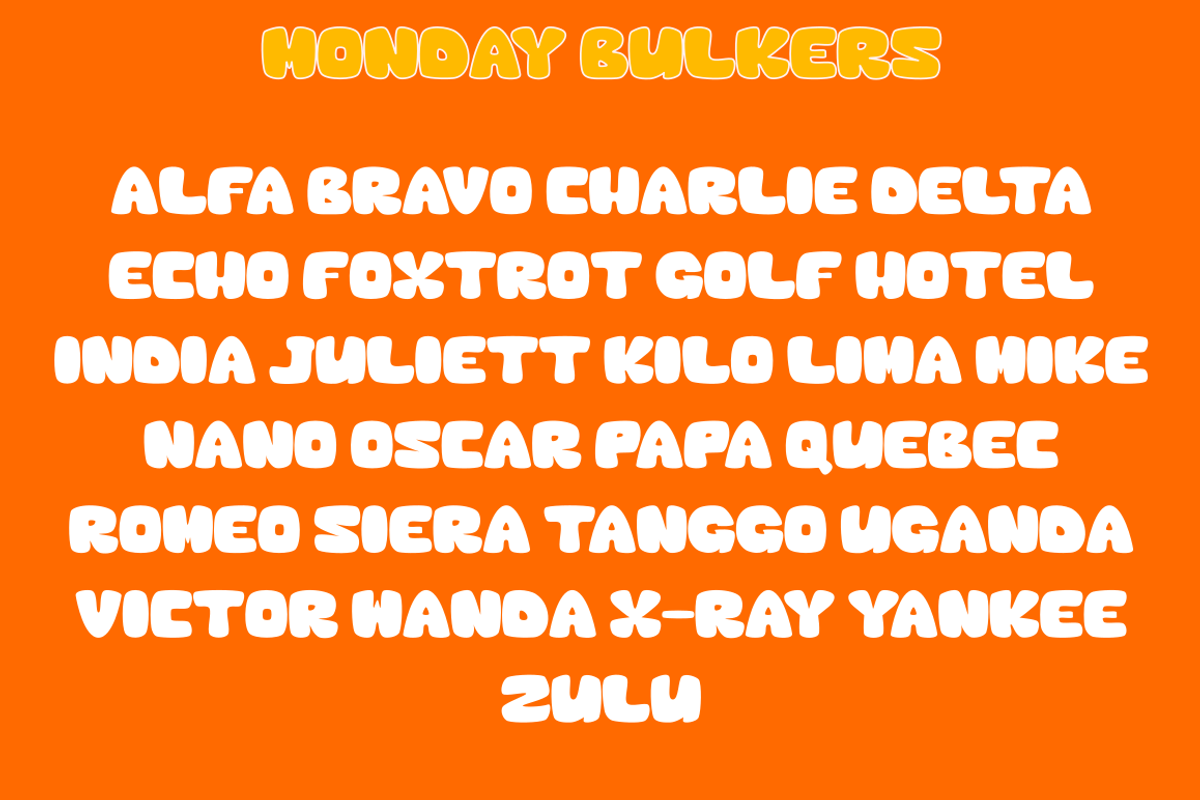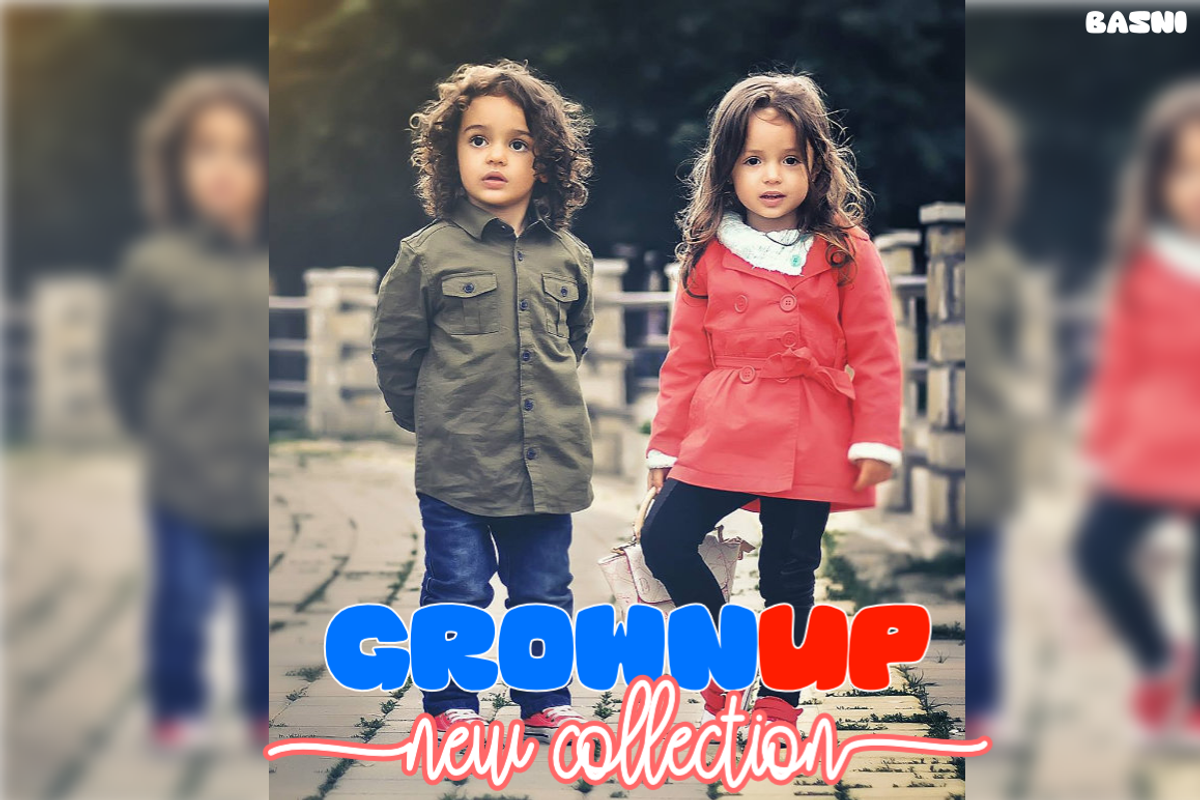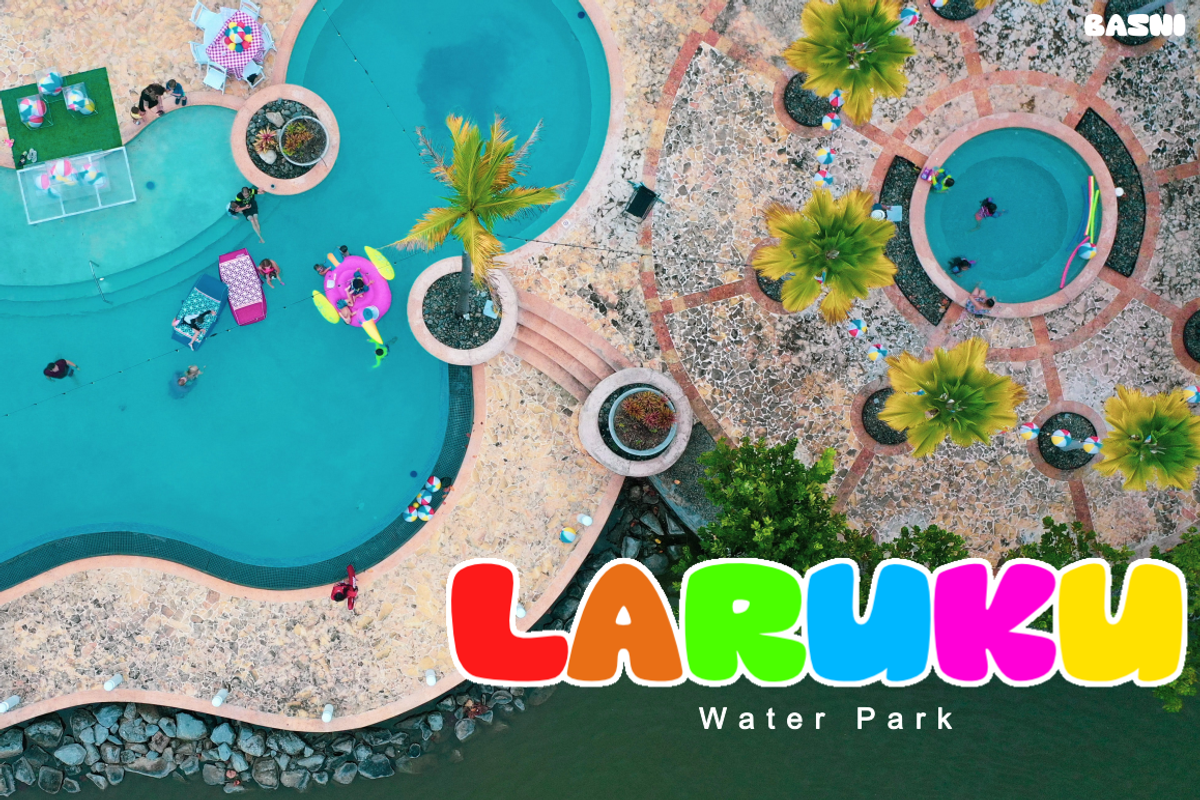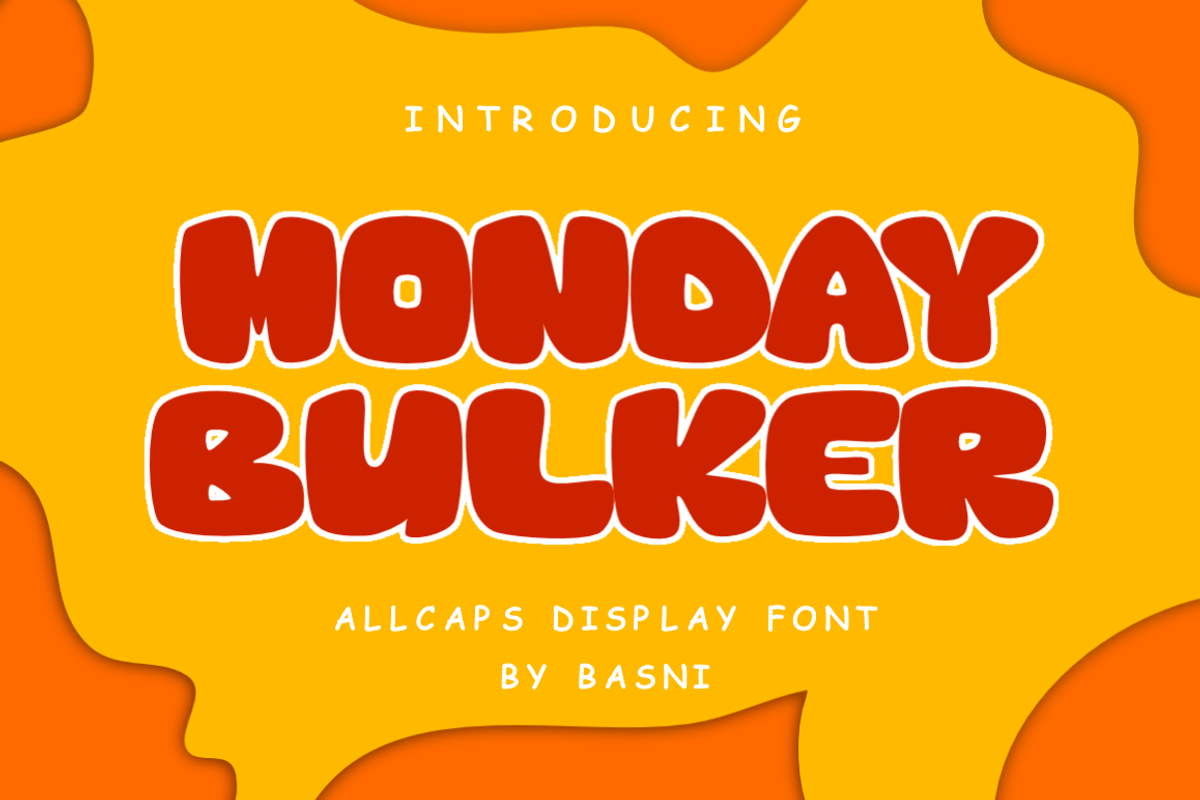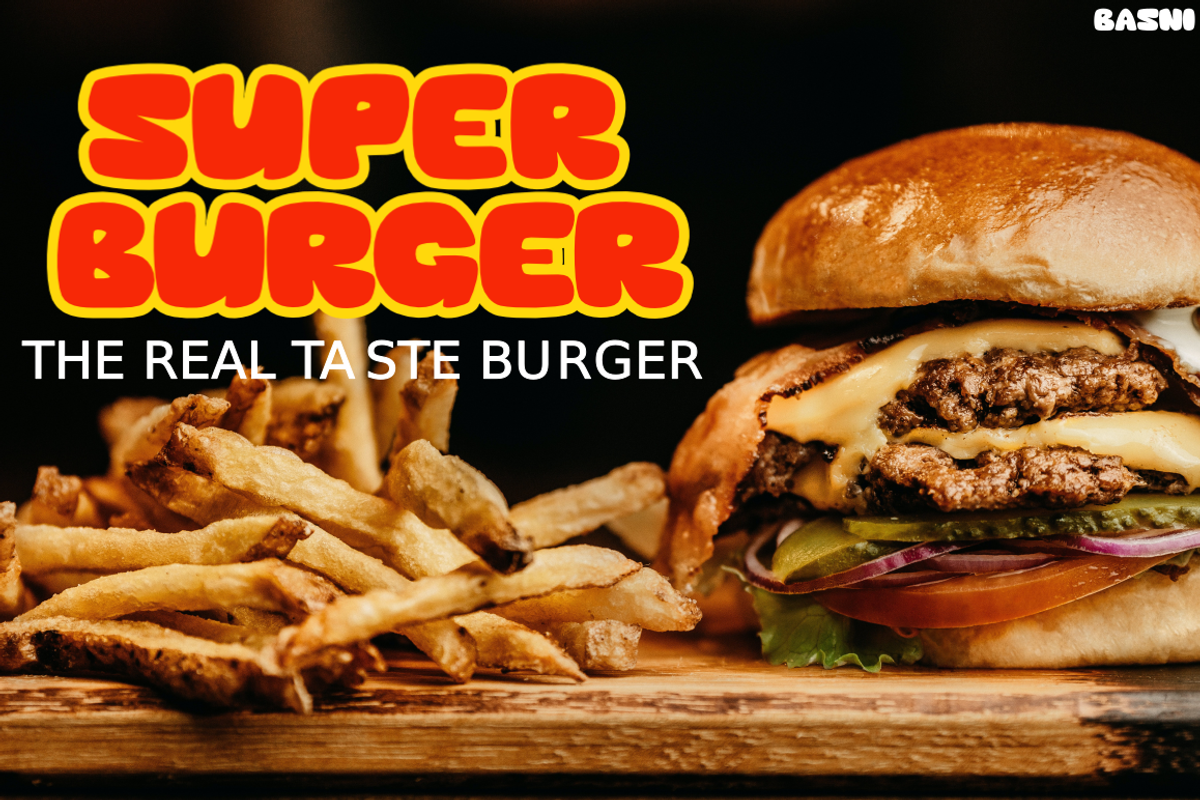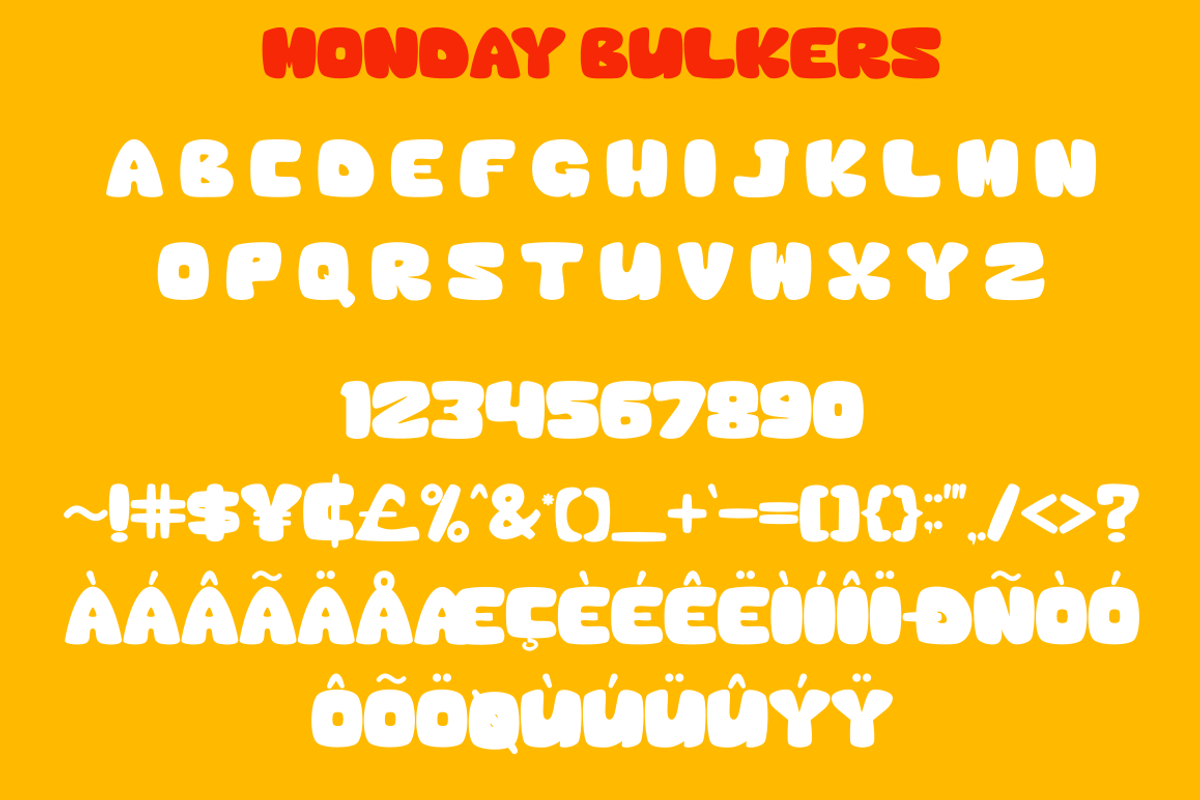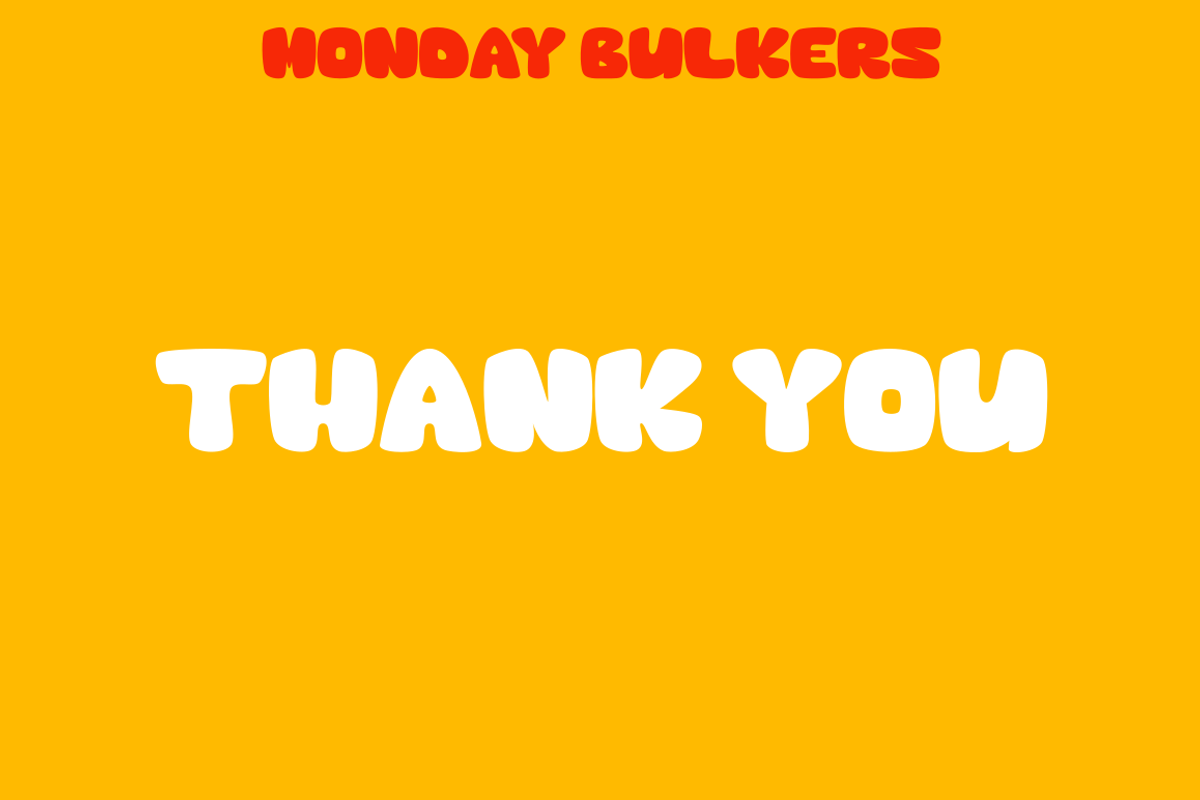
Monday Bulker
MONDAY BULKER is All Caps Display Font. MONDAY BULKER very suitable for logos & branding, product design, labels and so on. MONDAY BULKER looks strong and eyecathcing.